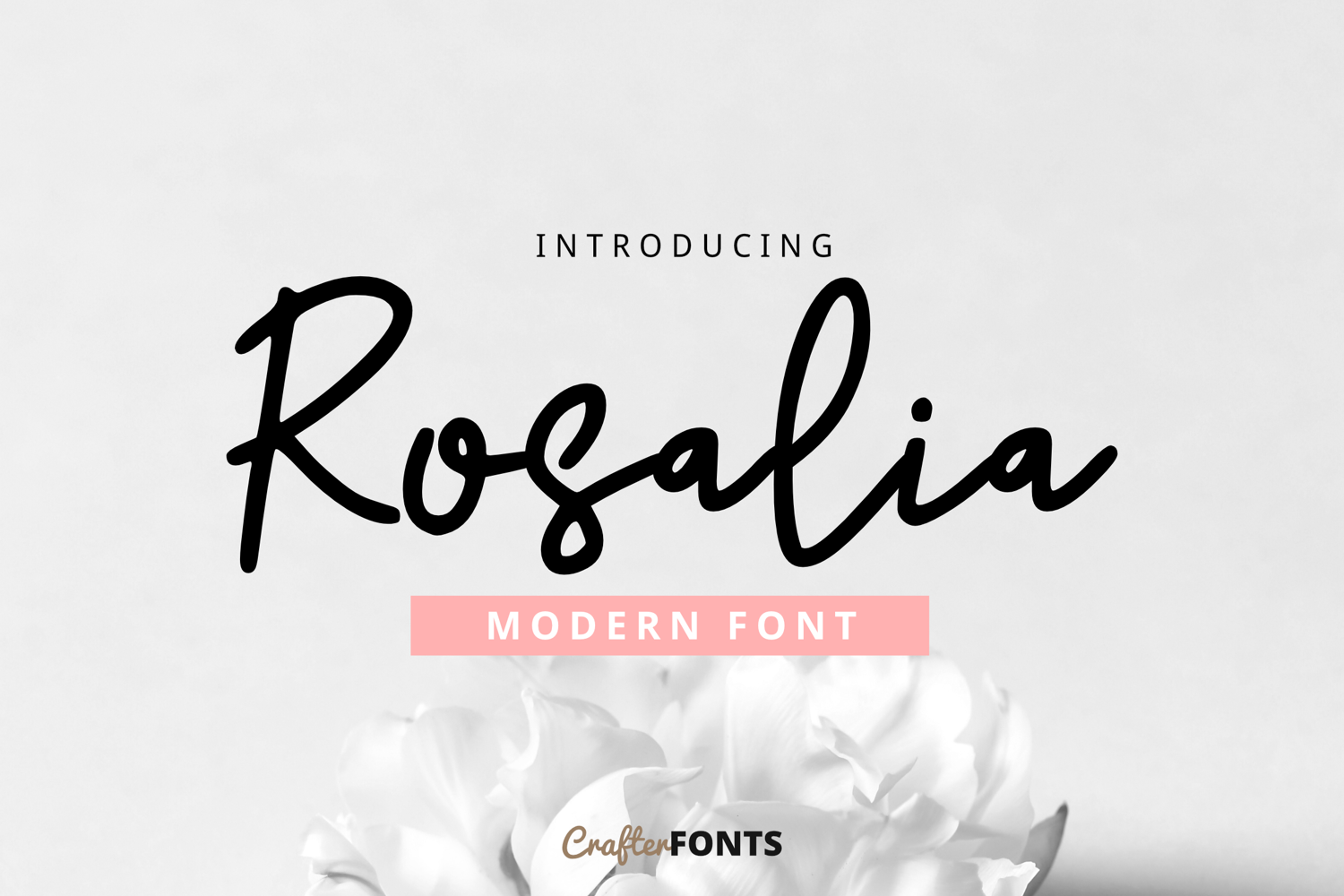
Rosalia Modern Script Font
Rosalia Regular
Rosalia – Modern Script Font
Elevate your designs with Rosalia, a modern script font featuring a casual, elegant, and authentic handwritten feel. It is perfectly suited for branding, wedding invitations, social media quotes, logos, and premium packaging designs.
• Basic Latin Character Set – Includes Uppercase (A-Z), Lowercase (a-z), Numbers (0-9), and essential Punctuations/Symbols.
• Character Set & Multilingual Support – Includes Uppercase, Lowercase, Numbers, essential Punctuations, and extended character support for languages such as English, French, Spanish, German, Italian, Indonesian, and Malay.